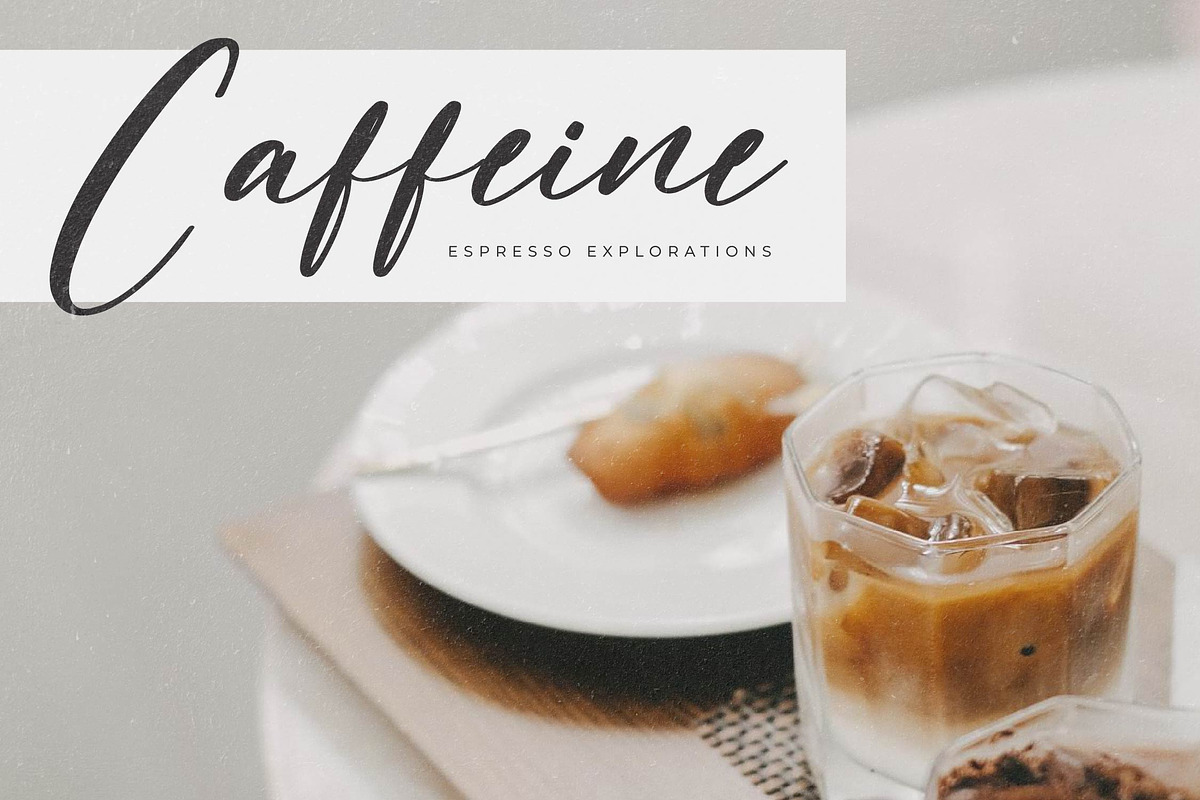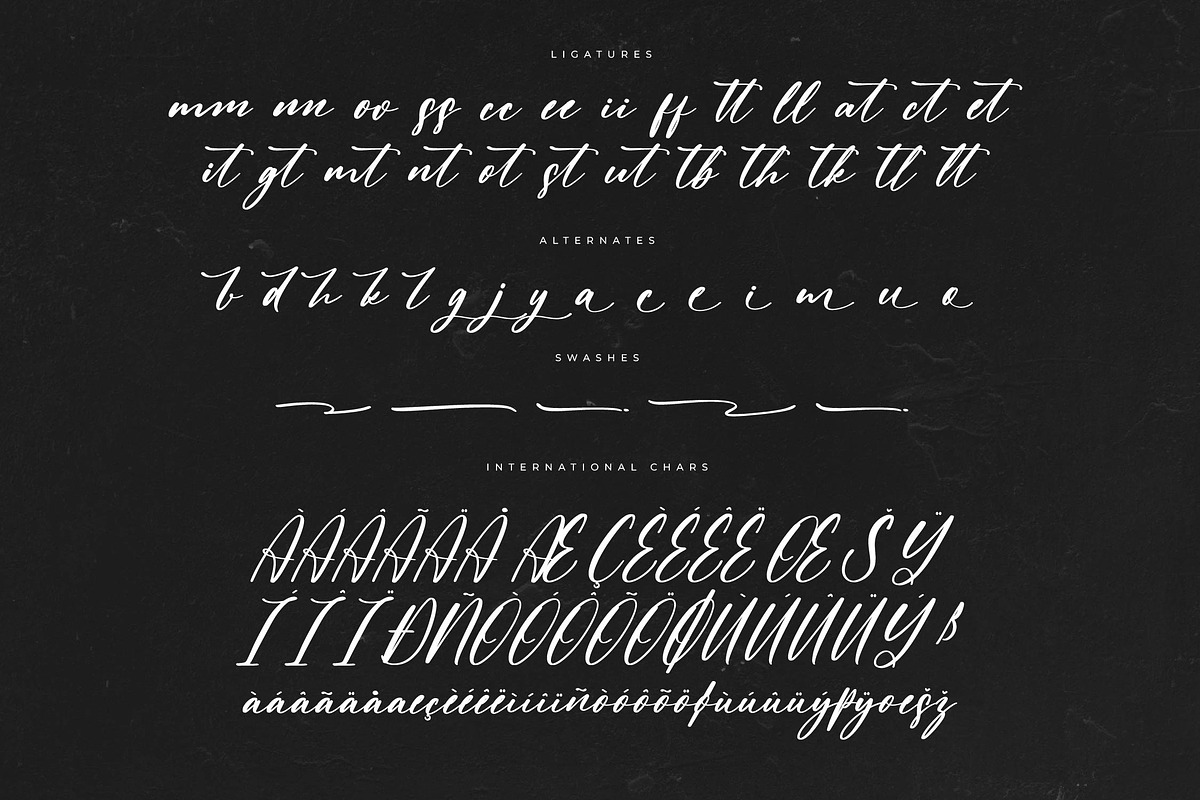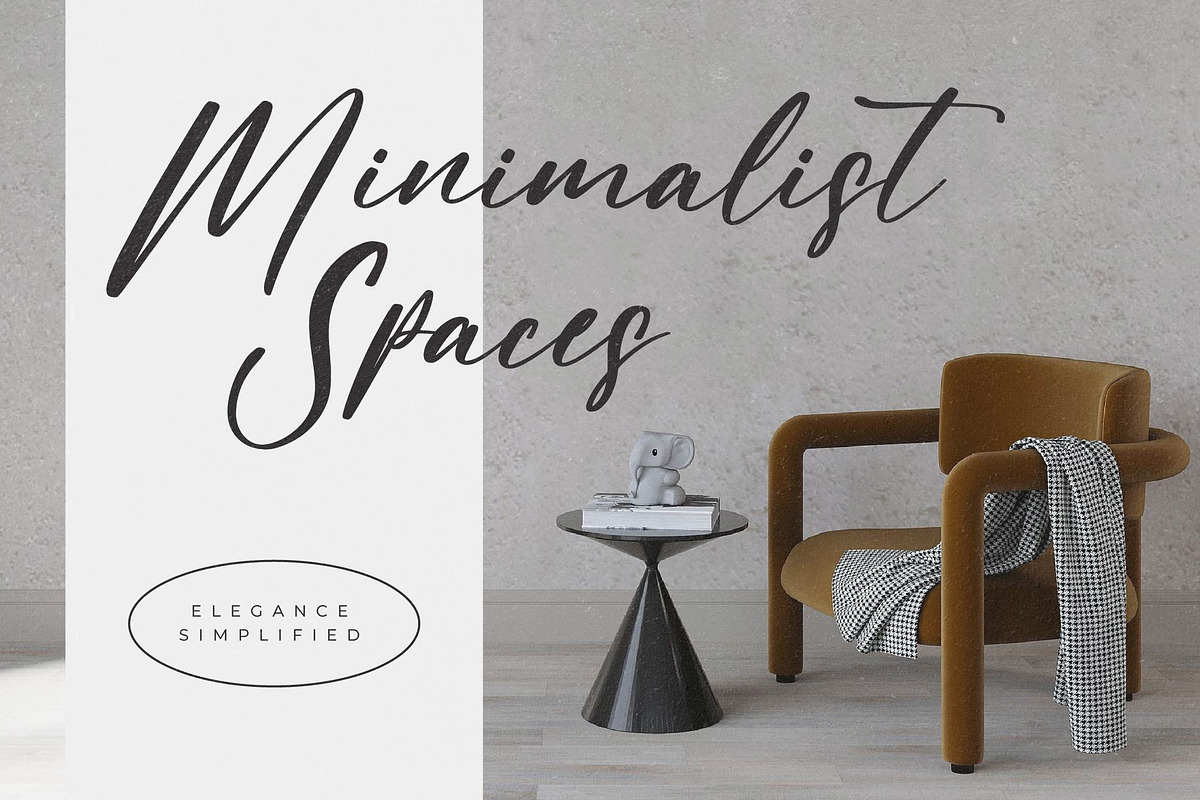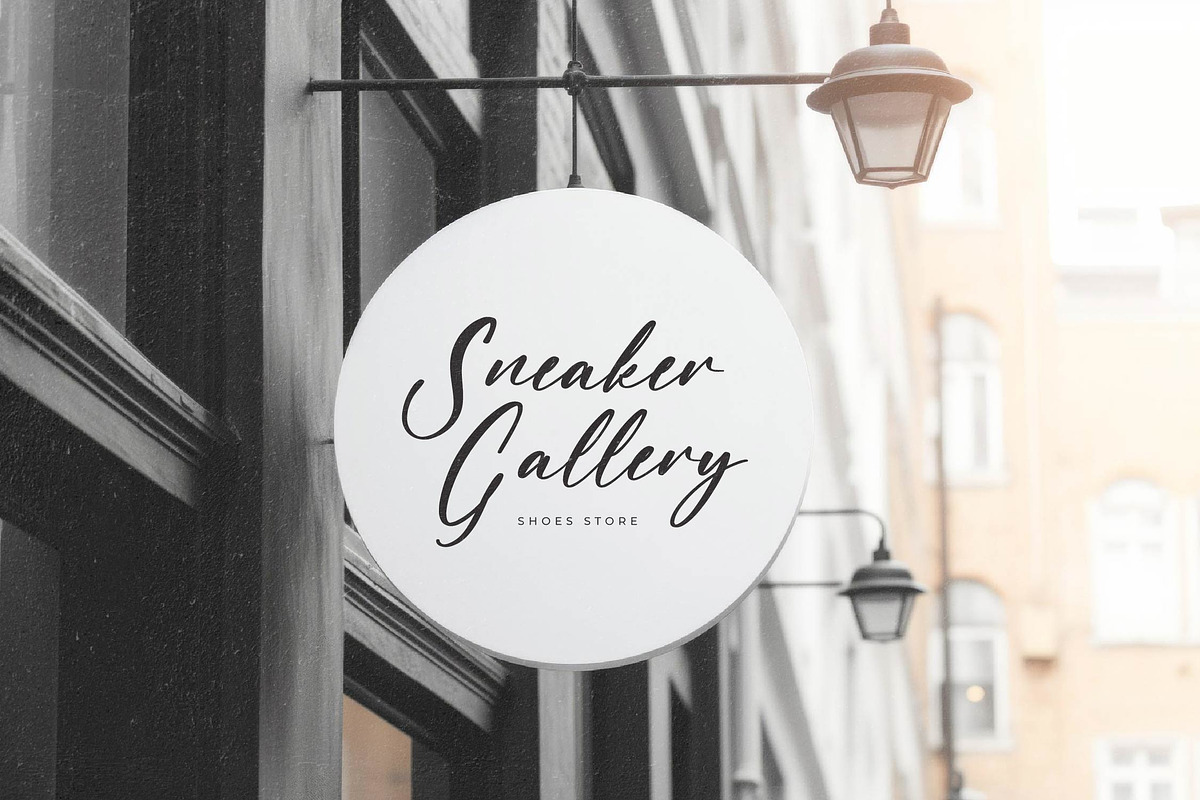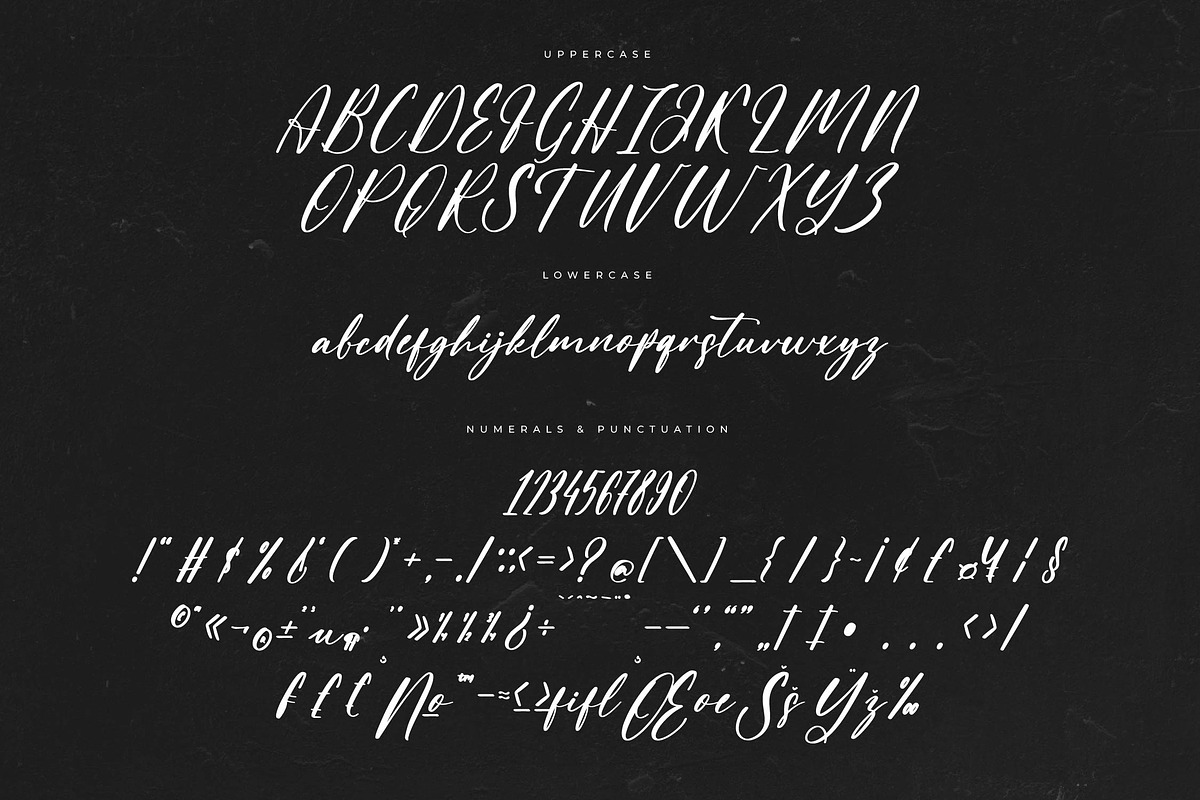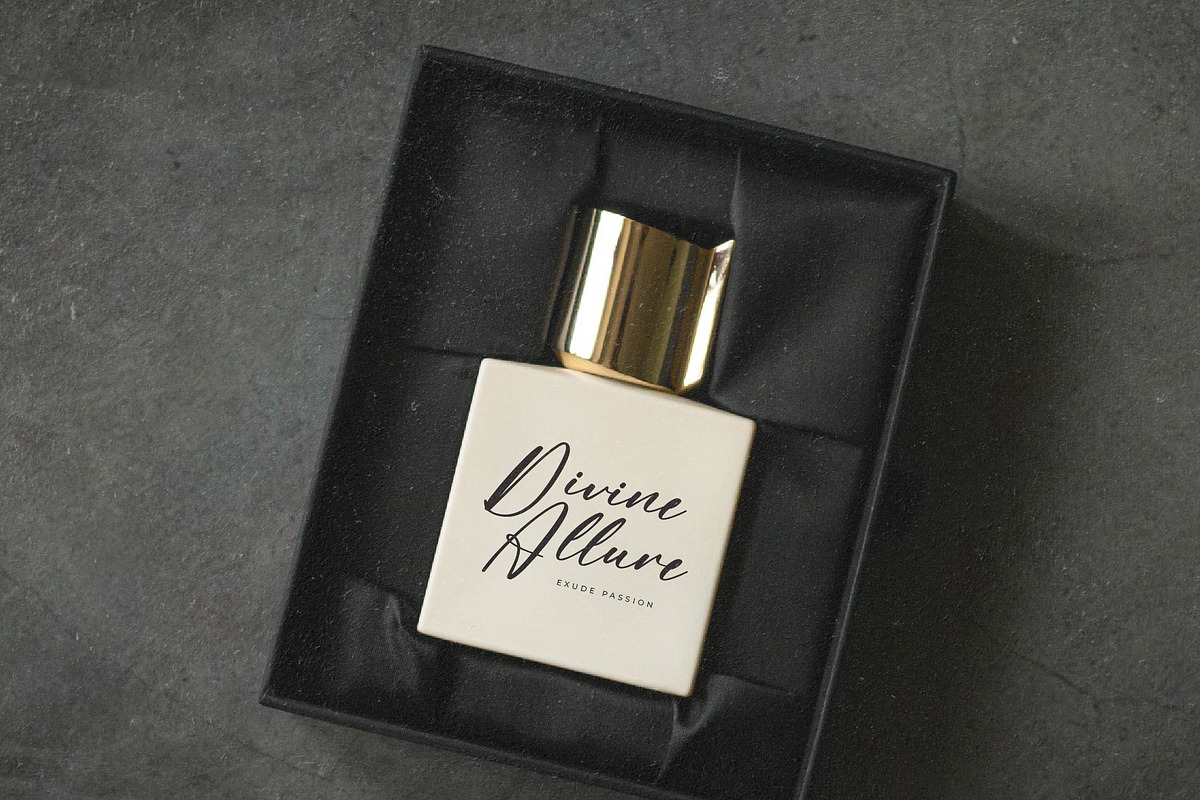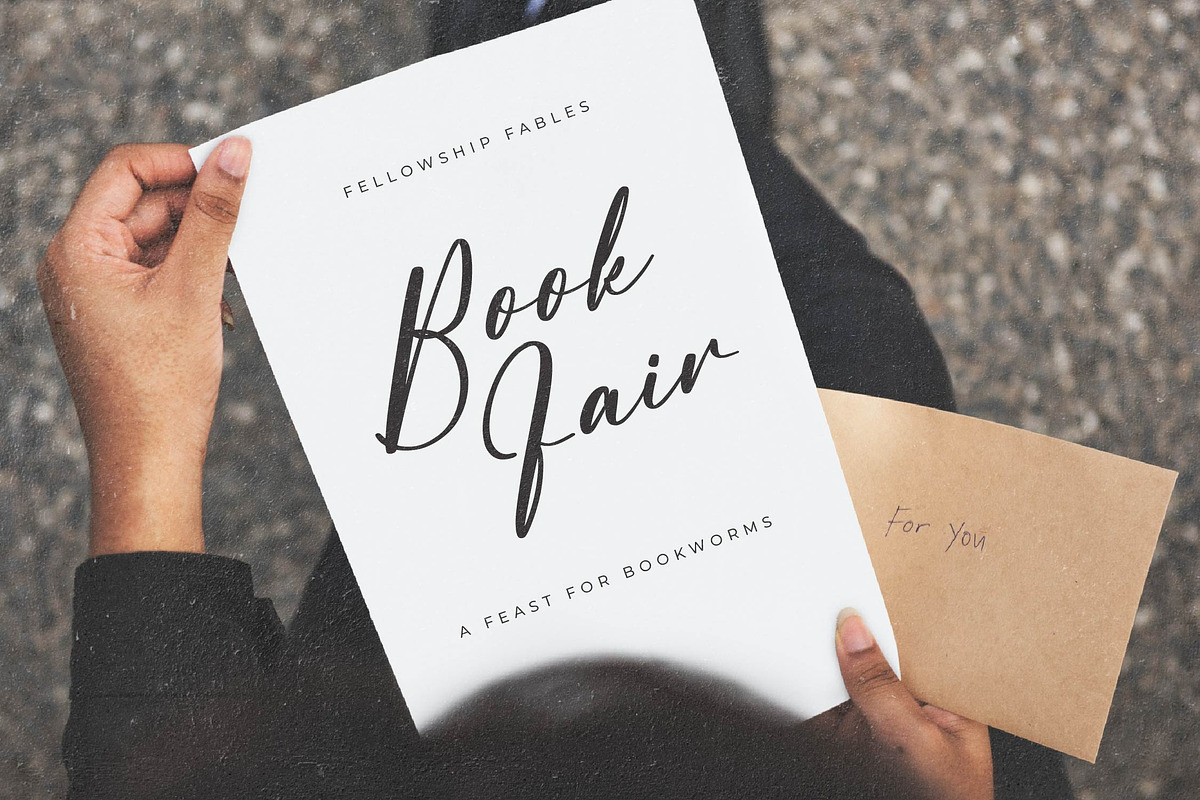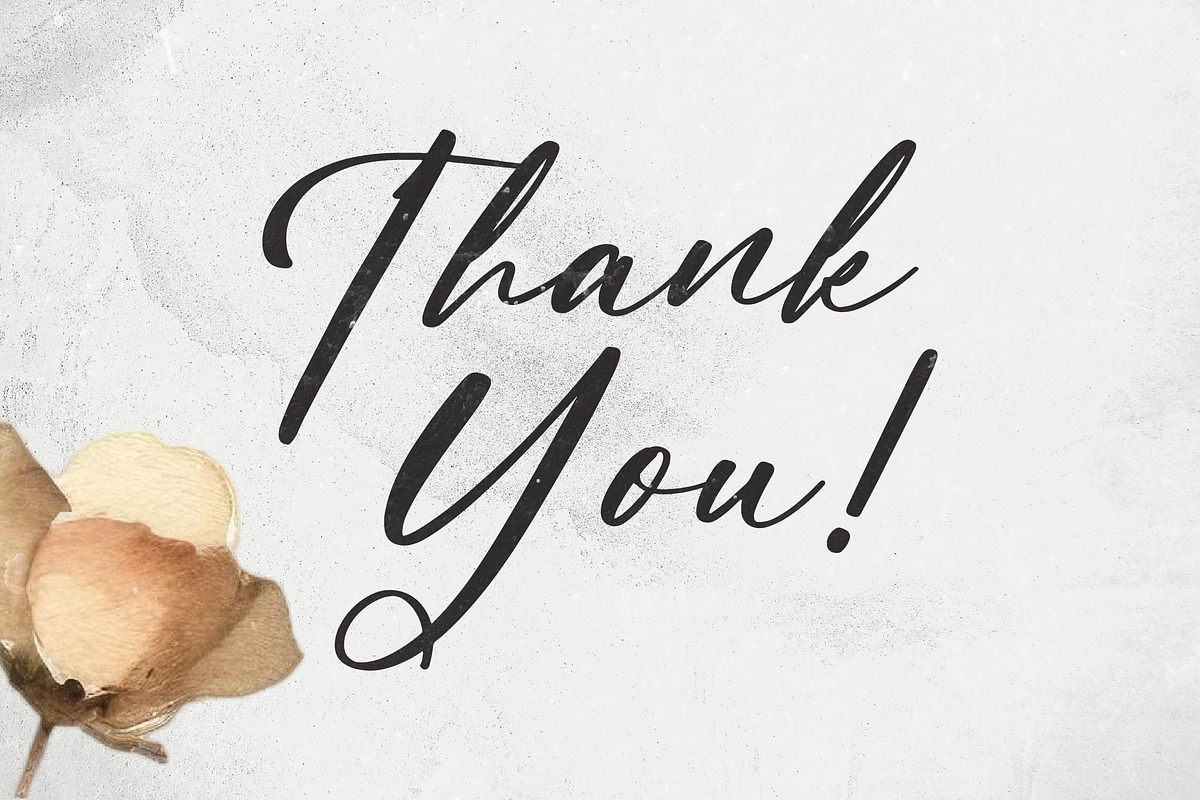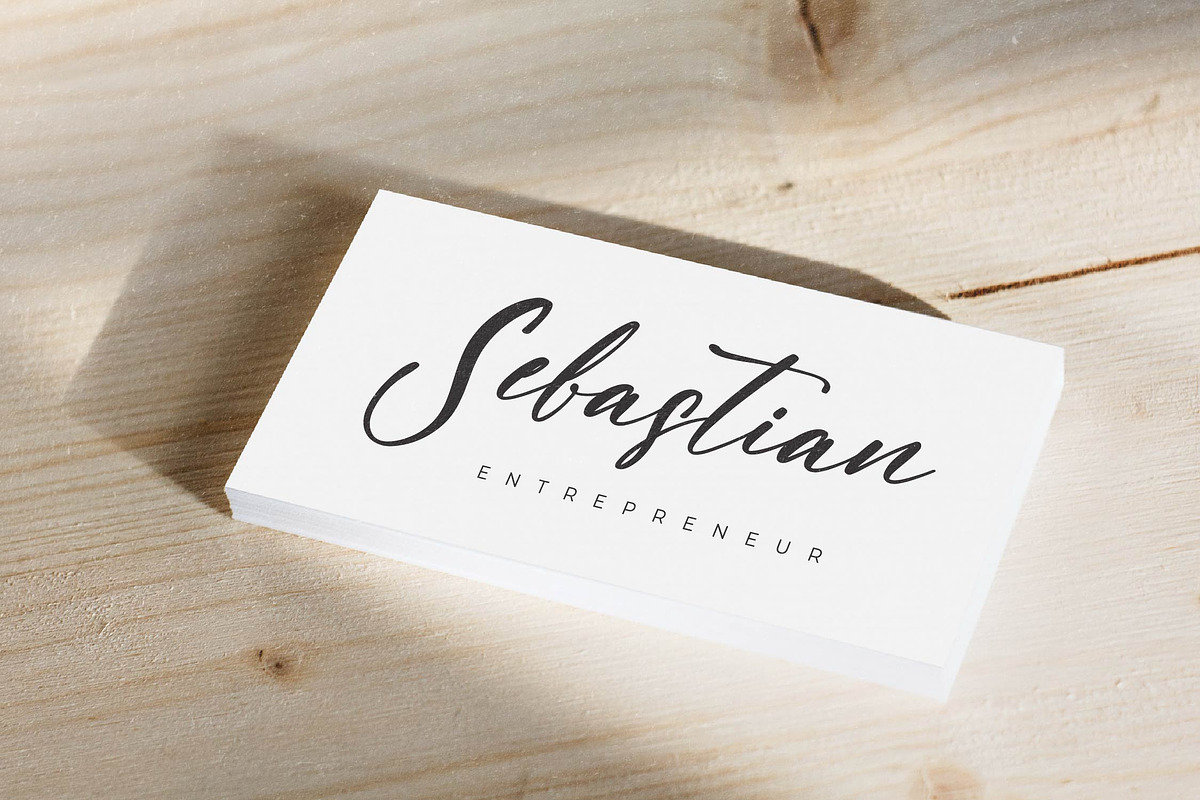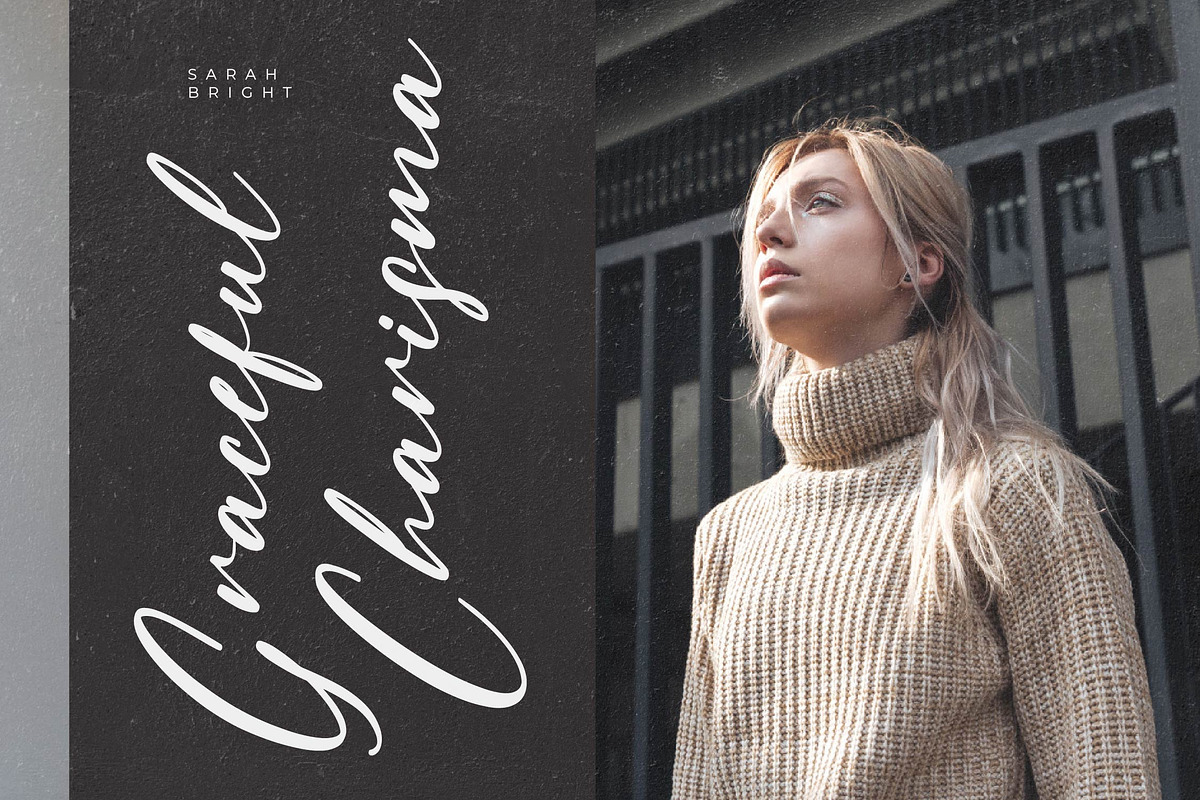
Claudia Martin Modern Handwritten
Claudia Martin – Modern Handwritten Freestyle , from Letterena, is a Luxury Script font, suitable for any projects such as: logos, branding projects, homeware designs, product packaging, mugs, quotes, posters, shopping bags, t-shirts, book covers, name card, invitation cards, greeting cards, label, photography, watermark, special events, and all your other luxury and beautiful projects that need a Luxury Script taste.